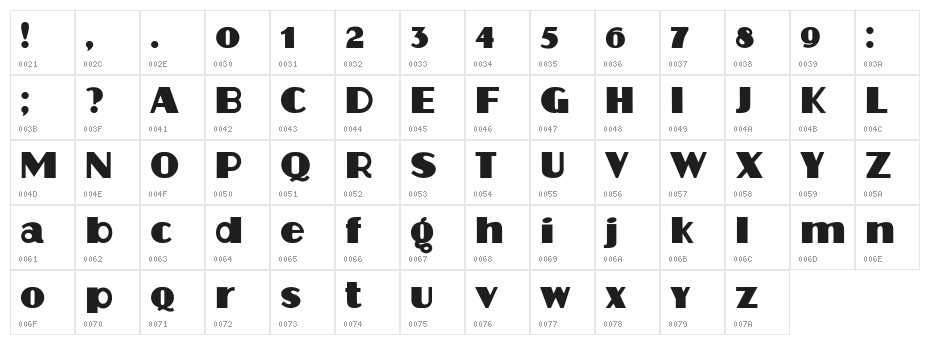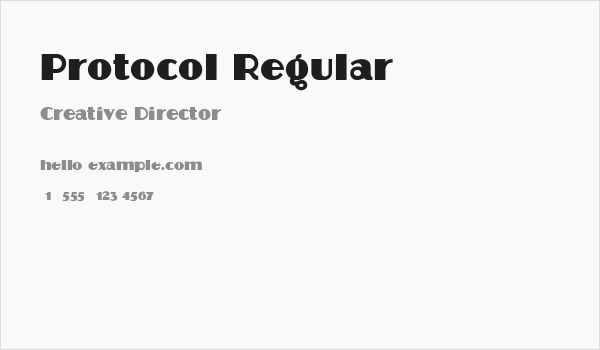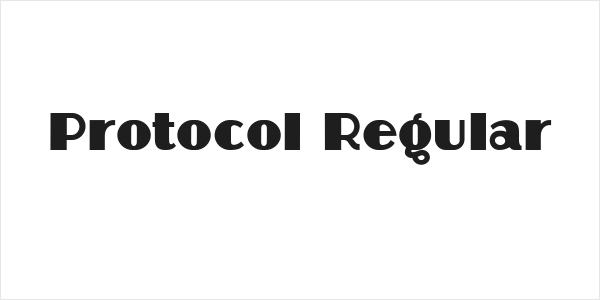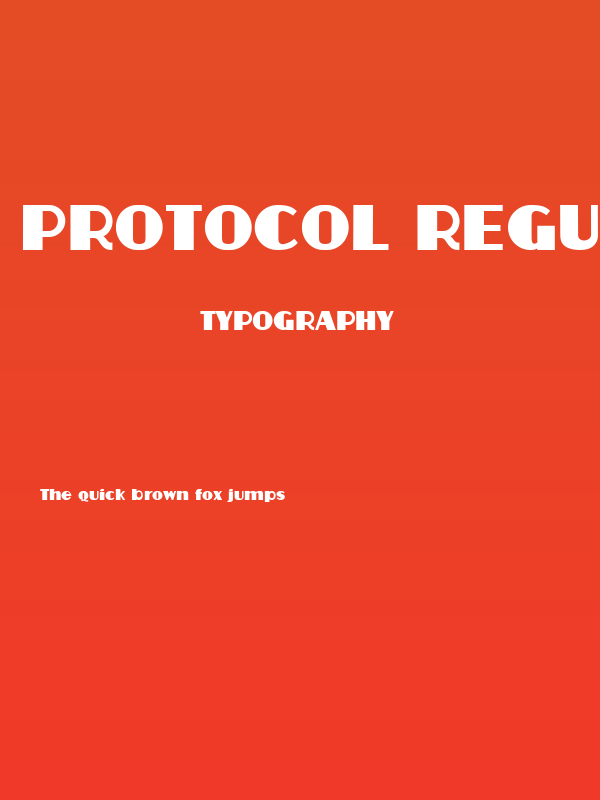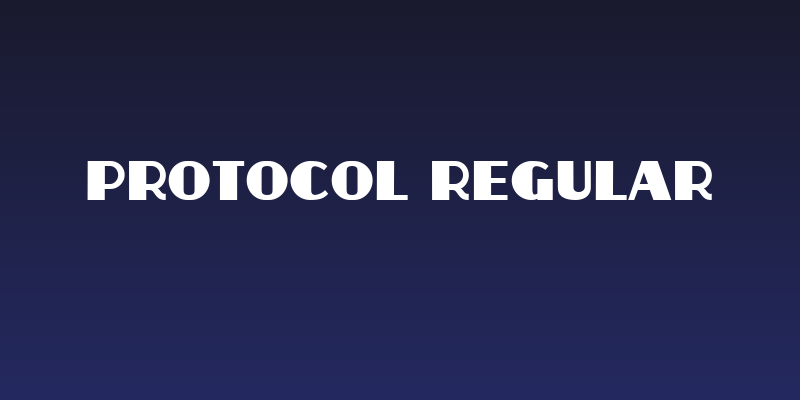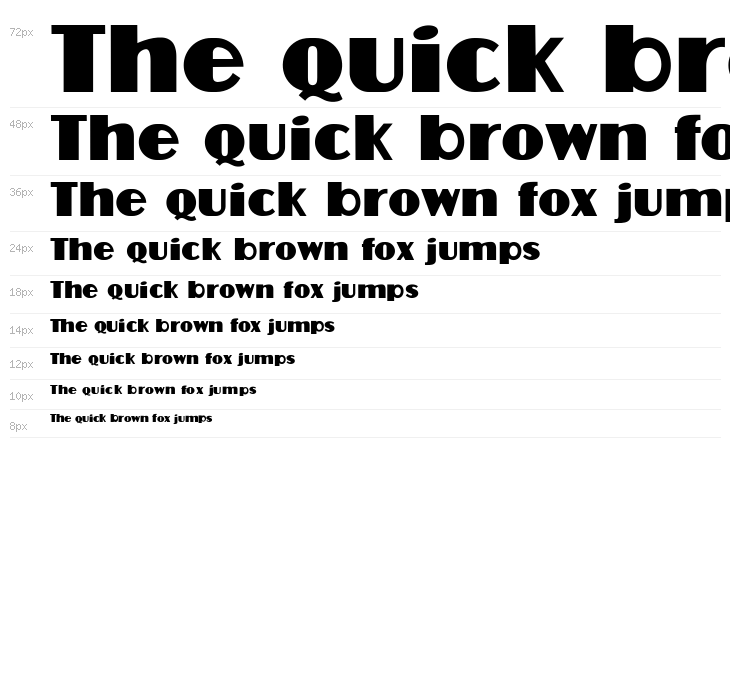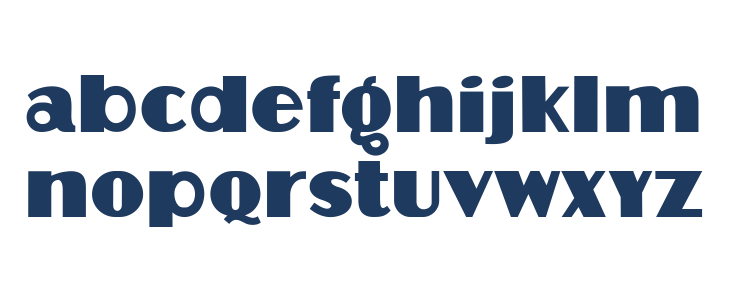
Protocol Regular Font
Protocol Regular Description
This typeface features bold, geometric letterforms with a strong presence. The uppercase letters are robust and commanding, while the lowercase letters maintain a consistent weight, offering a harmonious balance. The numerals are equally bold, ensuring clarity and impact. The special characters are designed to complement the overall style, maintaining the bold aesthetic. The font's clean lines and modern design make it versatile for various applications.